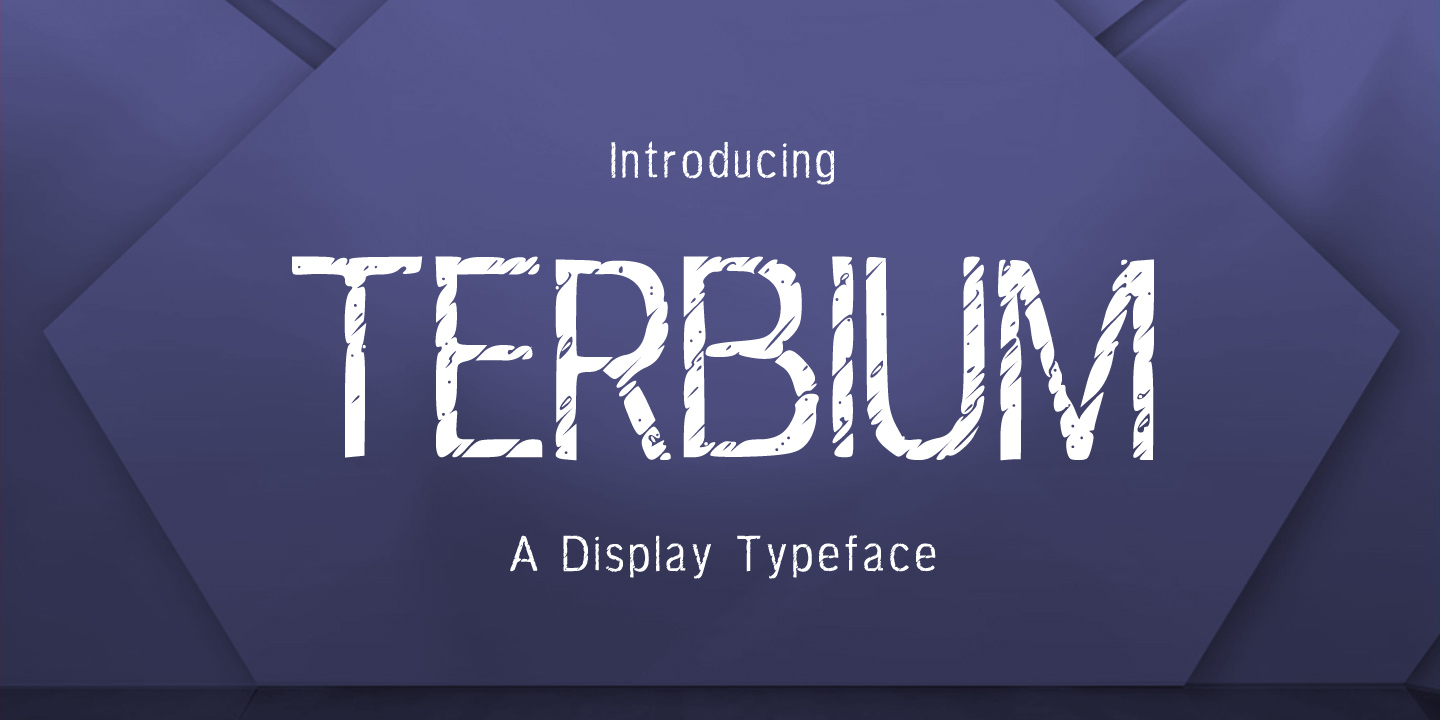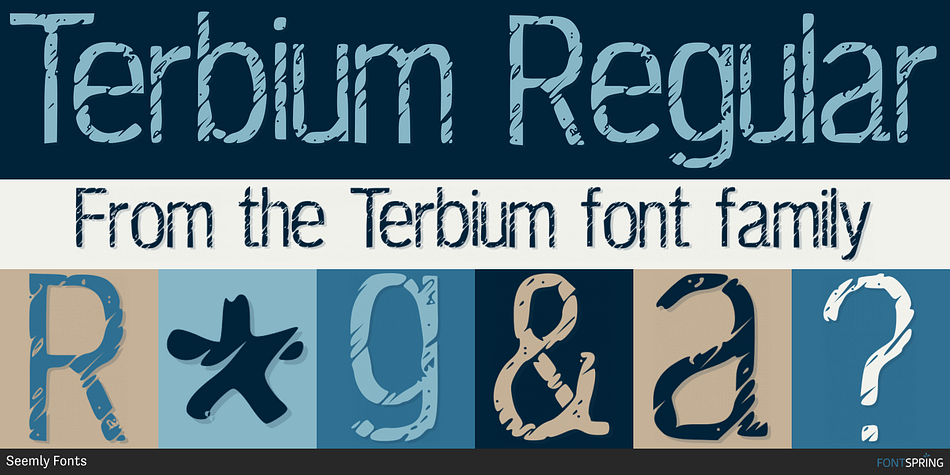
Designed by Md. Shohail Bhuiyan, Terbium is a display sans font published by Seemly Fonts.
Terbium Regular
Introducing Terbium!
Terbium is a modern font. Terbium is perfectly suited to stationery, logos, t-shirt, paper, print design, website header, photo frame, flyer, music cover, poster, image slider and much more.